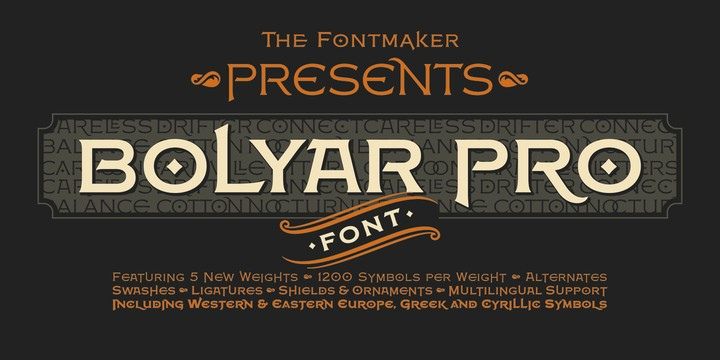
FM Bolyar Pro Font
FM Bolyar Pro Font finds perfect application in elegant branding projects, luxury packaging design, high-end editorial layouts, fashion magazines, premium product catalogs, sophisticated wedding invitations, upscale restaurant menus, boutique hotel materials, artistic portfolios, and refined digital interfaces.
What makes FM Bolyar Pro Font exciting is its seamless fusion of classical elegance and contemporary sophistication that creates an instantly recognizable premium aesthetic. This exceptional typeface features refined letterforms with subtle contrast and graceful proportions that convey luxury and attention to detail. The font's distinctive character combines traditional craftsmanship with modern design sensibilities, making it perfect for brands seeking to communicate exclusivity, quality, and timeless appeal to discerning audiences.
FM Bolyar Pro Font belongs to the premium serif font family, specifically crafted for high-end design applications where typographic excellence is essential. This font family typically includes light, regular, medium, bold, and extra-bold weights, complemented by matching italic styles, providing designers with comprehensive tools for creating sophisticated visual hierarchies.
Perfect for luxury brand designers, fashion stylists, editorial art directors, and creative professionals in premium markets, this typeface excels in headlines, body text, and decorative applications. The font's versatility spans across high-end print materials, exclusive digital platforms, premium packaging, and sophisticated branding systems.
The expertly crafted letterforms maintain exceptional readability while expressing distinctive personality and premium quality. From intimate invitation designs to large-scale luxury advertising campaigns, FM Bolyar Pro Font performs flawlessly while preserving its elegant character and sophisticated appeal.
Contemporary designers appreciate how this font communicates luxury without ostentation, creating designs that feel both exclusive and accessible. Its extensive language support and professional features ensure seamless integration into international luxury brands and multilingual premium publications.